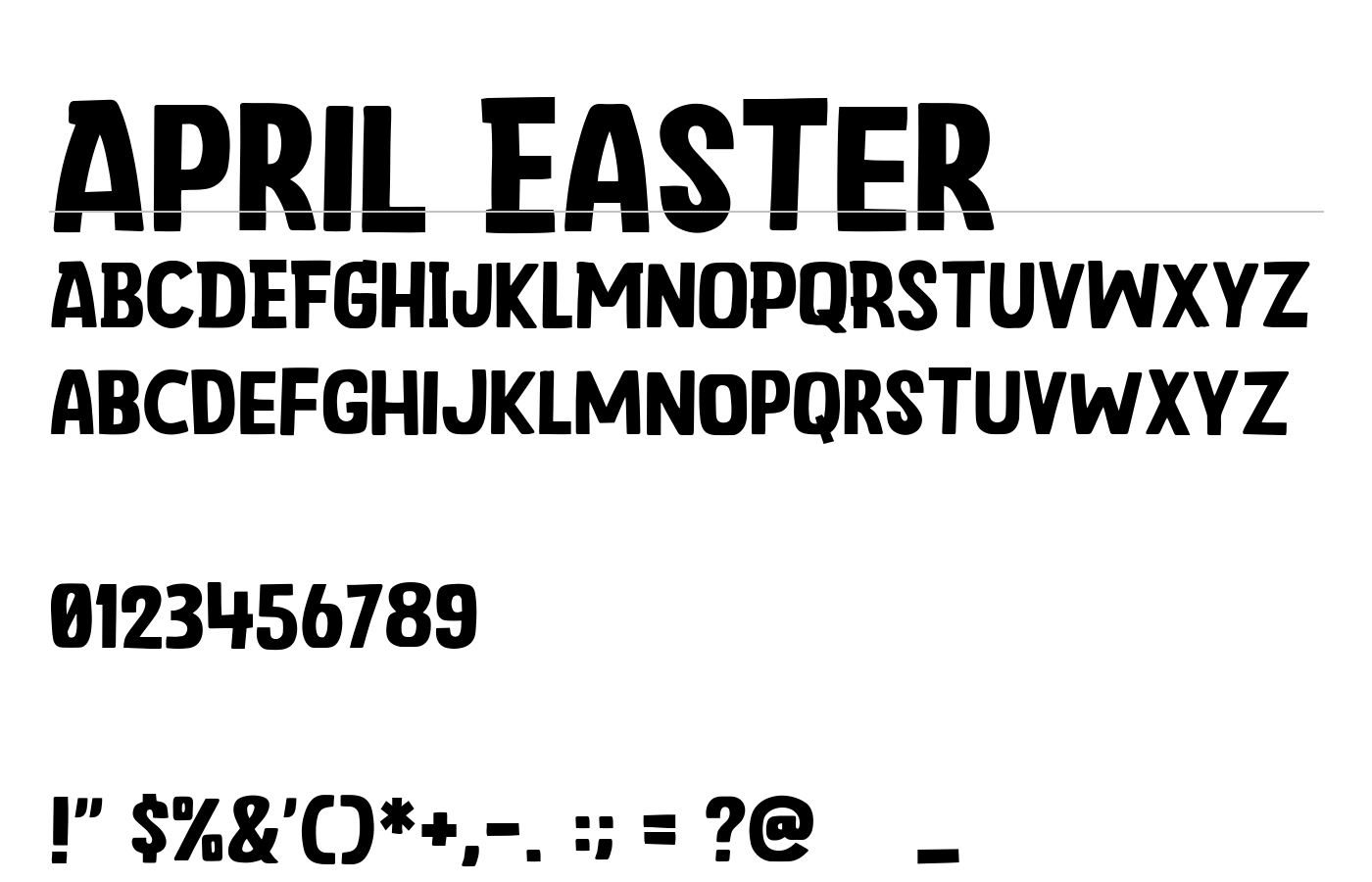
April Easter Font is a bold and playful sans-serif typeface with slightly irregular, hand-drawn shapes that give it a fun and informal personality. Its strong, compact letterforms with moderate contrast and quirky details make it ideal for eye-catching headlines, posters, and branding that seeks a lively and approachable feel. This font works best where a cheerful, friendly vibe is desired, such as in children's products, festive designs, or casual advertising.
April Easter Font
About April Easter Font